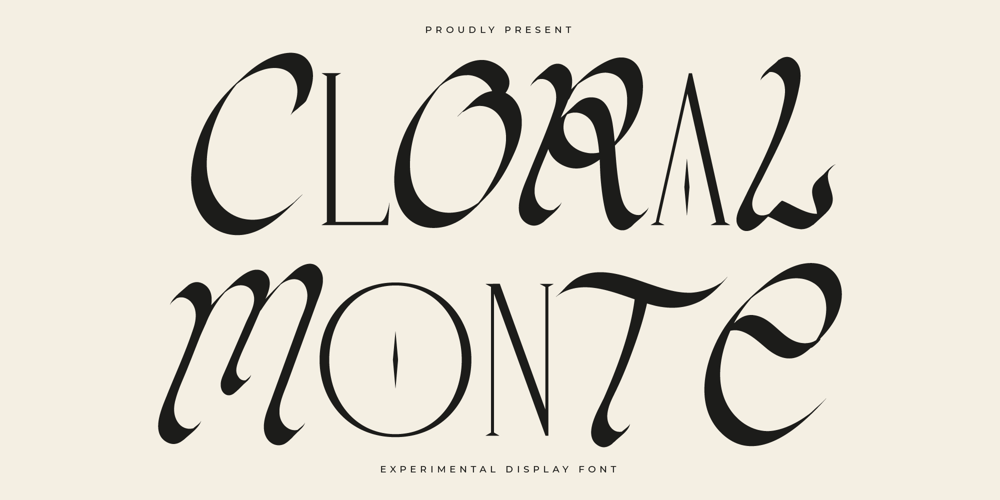
Cloral Monte Font Family was designed by Heru Utama Putra and published by Letterena Studios. Cloral Monte contains 1 styles and family package options. Cloral Monte is a modern and classic typeface that has its own unique style and modern look. This typeface is perfect for an elegant & luxurious logo, book or movie title design, fashion brand, magazine, clothes, lettering, quotes, and so much more.